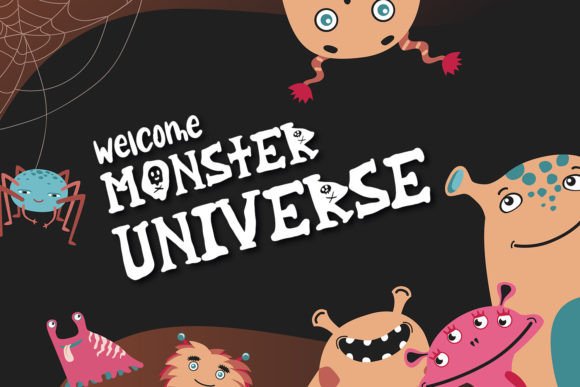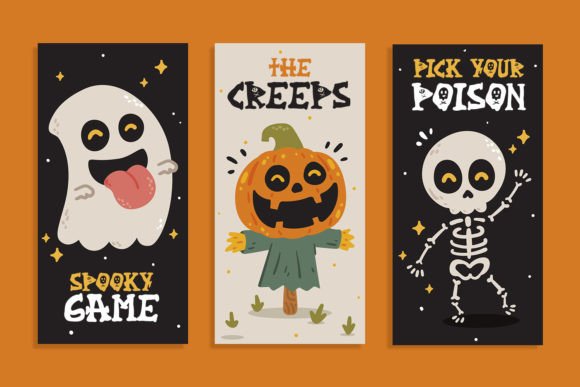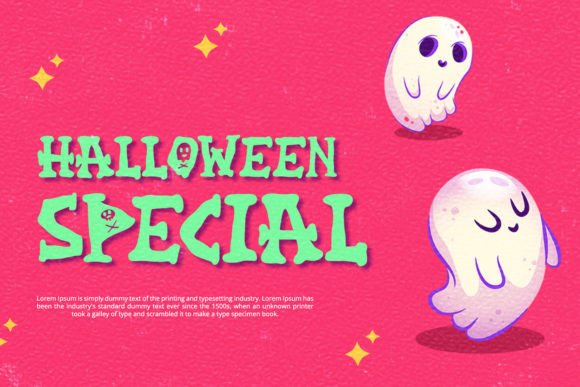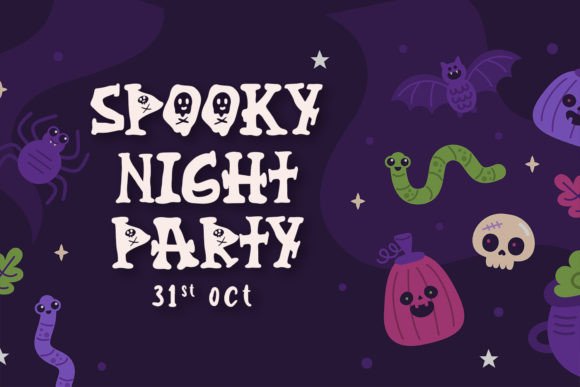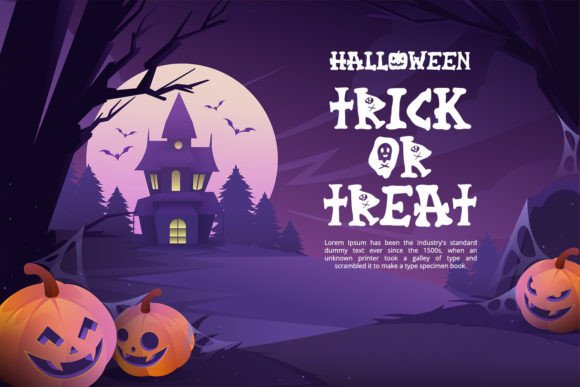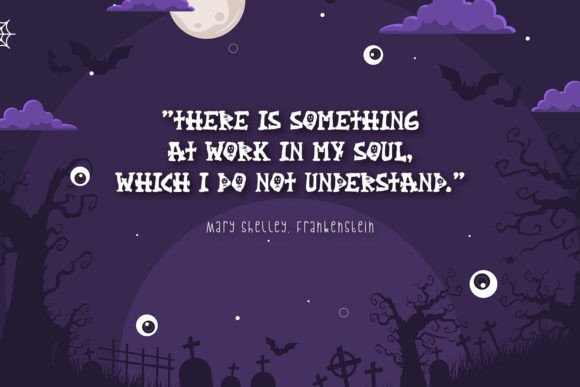
Introduction to Hello Monster Font
Have you ever stared at a blank canvas, waiting for inspiration to strike? The blank page stares back, taunting you with its emptiness. But what if you had the perfect tool to break the silence? For designers, finding the right font can be the difference between a project’s success and failure. That’s where Hello Monster Font comes in – a stunning serif font that’s as cute as it is versatile.
| 👤 Author | alpapranastudio |
Whether you’re working on a branding project, designing a logo, or creating a lettering masterpiece, Hello Monster Font is the perfect companion. Its high-quality design makes it a valuable resource for any creative project, and with its transparent background, you can easily integrate it into your designs. Plus, it’s available for free download, making it an essential addition to any designer’s toolkit.
Key Features of Hello Monster Font
- High-quality design resource for creative projects, suitable for various applications including digital art and print materials.
- Unique, bold, and playful design style, making it an ideal choice for creative projects that demand attention.
- Designed to be versatile and adaptable, allowing designers to experiment with different layouts and compositions.
Honest Review: Hello Monster Font
I recently stumbled upon the Hello Monster Font and was eager to put it to the test in my creative project. This font has some amazing features that make it a great addition to any design resource.
- ✨ High-quality design: The font is crisp, clean, and has a unique touch that can elevate any text-based design.
- ✨ Transparent background: The font’s transparent background makes it easy to use in combination with other design elements, giving you more creative freedom.
- ⚠️ Limited font styles: The font only comes in a few styles, which might not be ideal for projects that require a wide range of typography options.
- ⚠️ Not ideal for small text: The font’s size and style make it better suited for larger text elements, so be mindful of using it for small text.
Overall, I’m impressed with the Hello Monster Font. It’s a high-quality design resource that can add a unique touch to your creative project. While it has some limitations, its benefits far outweigh its drawbacks, making it a great addition to any designer’s toolkit.
Use Hello Monster Font for creative projects that require a unique, eye-catching design. Some common use cases include graphic design, digital art, and branding materials. For the most out of it, experiment with different font combinations and sizes to create a visually appealing design.